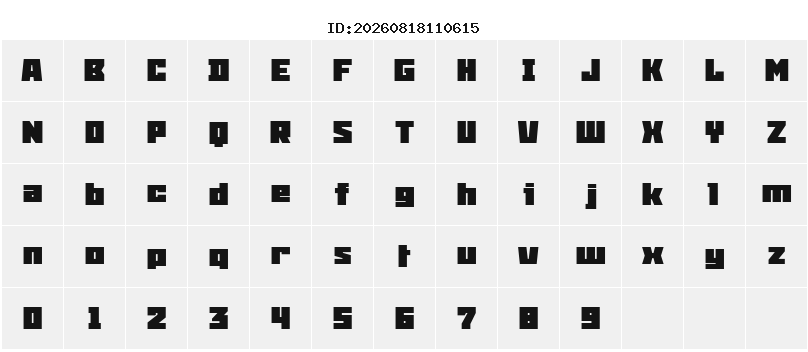
Snowstorm Black Preview
• Font Name: Snowstorm Black
• Font ID: Snowstorm Black:Version 1.00
• Full Font Name: Snowstorm Black
• Version: Version 1.00 July 15, 2015, initial release
• PostScript Name: SnowstormBlack
• Character Count: 308
About Snowstorm Black.otf
Snowstorm Black.otf is a modern, elegant sans-serif font designed for ultimate readability and visual harmony. Perfect for branding, headlines, web design, and print materials.